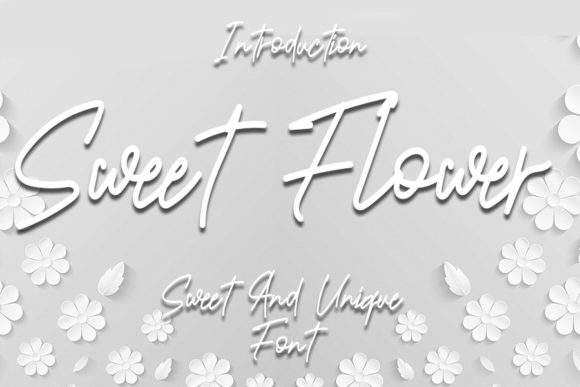
Venture into the realm of timeless beauty with Sweet Flower Font, a captivating script font crafted by ONE DESIGN to fulfill your creative desires. Journey through its intricate loops, delicate lines, and graceful swashes, and be mesmerized by the true art of typography.
Unleash your creativity and paint the canvas of your designs with Sweet Flower's elegant charm. Perfect for wedding invitations, this font evokes ethereal elegance, transforming your words into an artistic expression of love and commitment.
With Sweet Flower, you'll discover a treasure trove of possibilities. Craft personalized stationery, design heartfelt greeting cards, or create enchanting logos that radiate an air of sophistication. Its natural characters lend an authentic touch to your creations, making them captivating and memorable.
Embrace the allure of Sweet Flower and let your imagination flourish. Transform your designs into enchanting masterpieces, leaving a lasting impression on your audience. Experience the harmony of beauty and functionality as your creations come to life, adorned with the exquisite details of this exquisite script font.
Let Sweet Flower be your muse and guide you through the world of artistic expression. Explore the boundless realms of creativity and witness the magic unfold as your designs blossom into exquisite works of art.